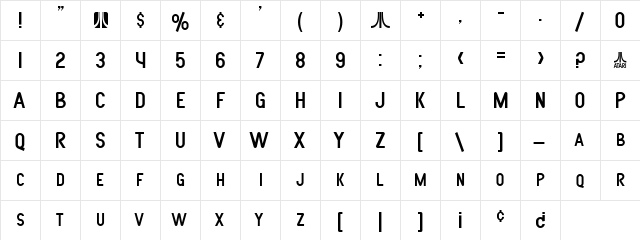
SF Atarian System Regular
SF Atarian System is a composed and adaptable typeface that performs quietly and consistently across a wide range of design contexts.